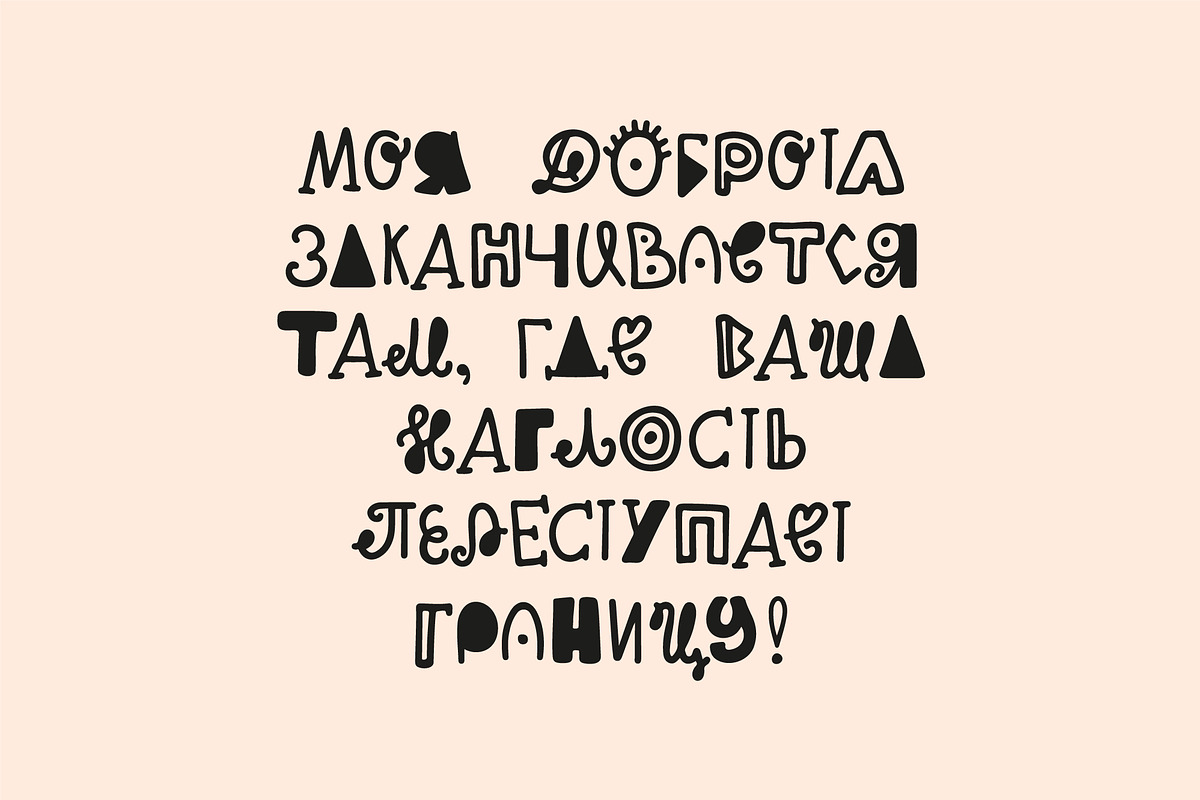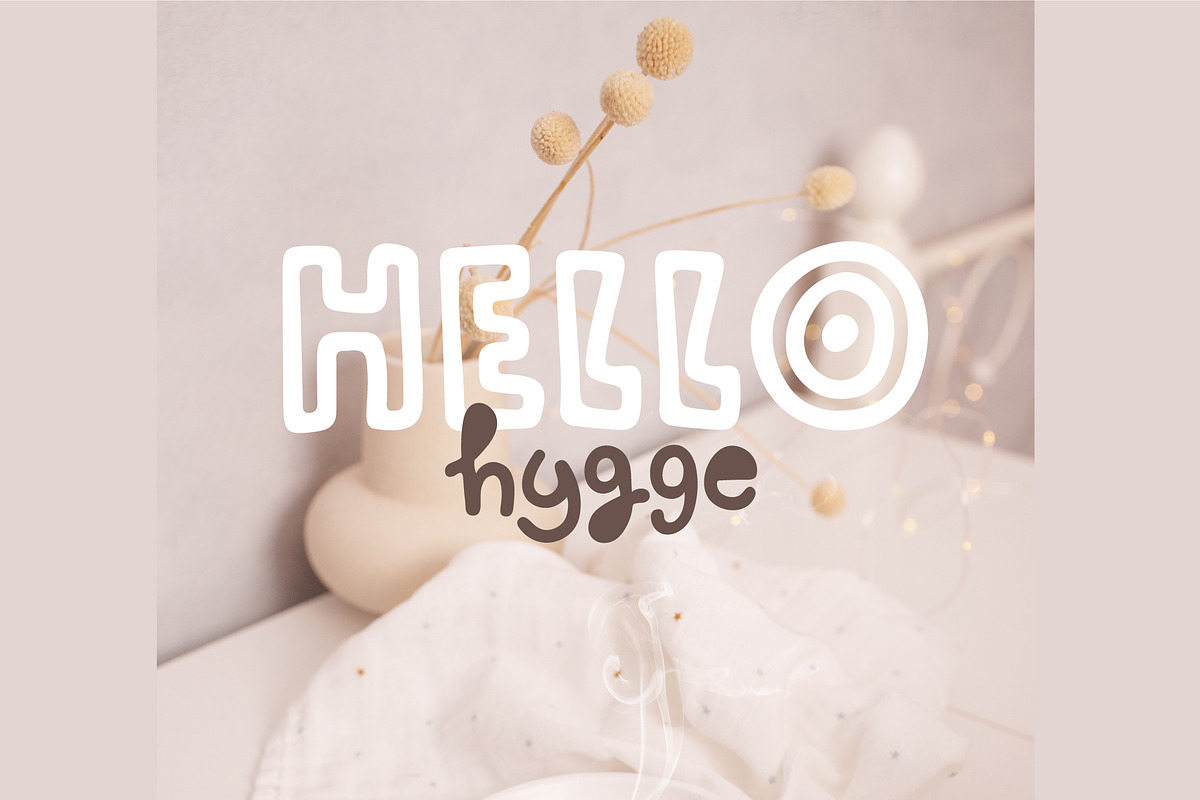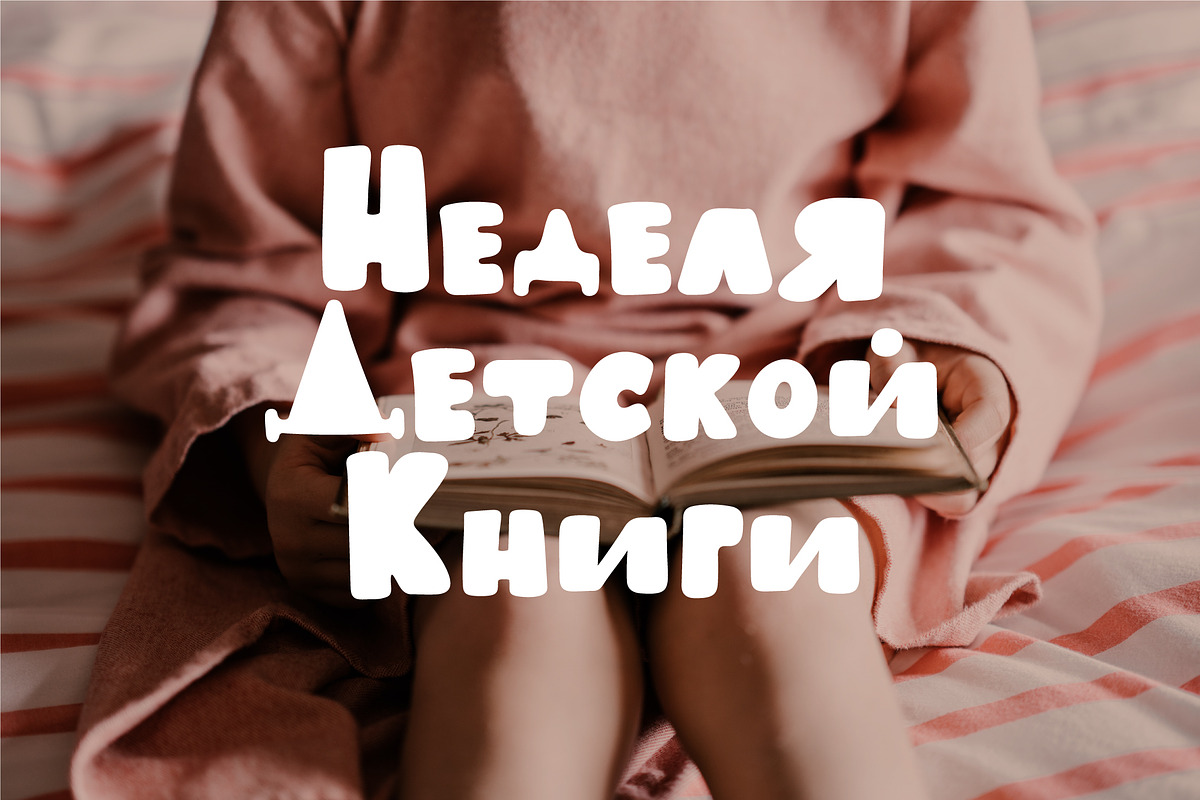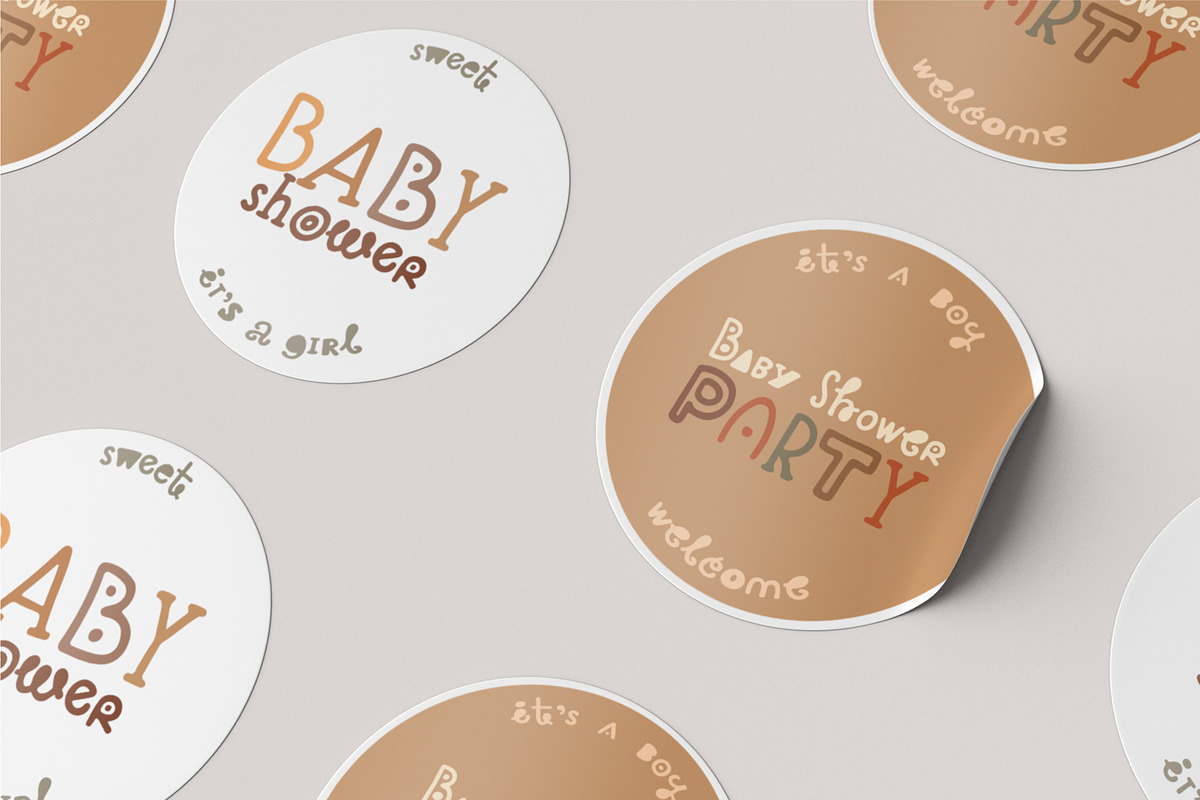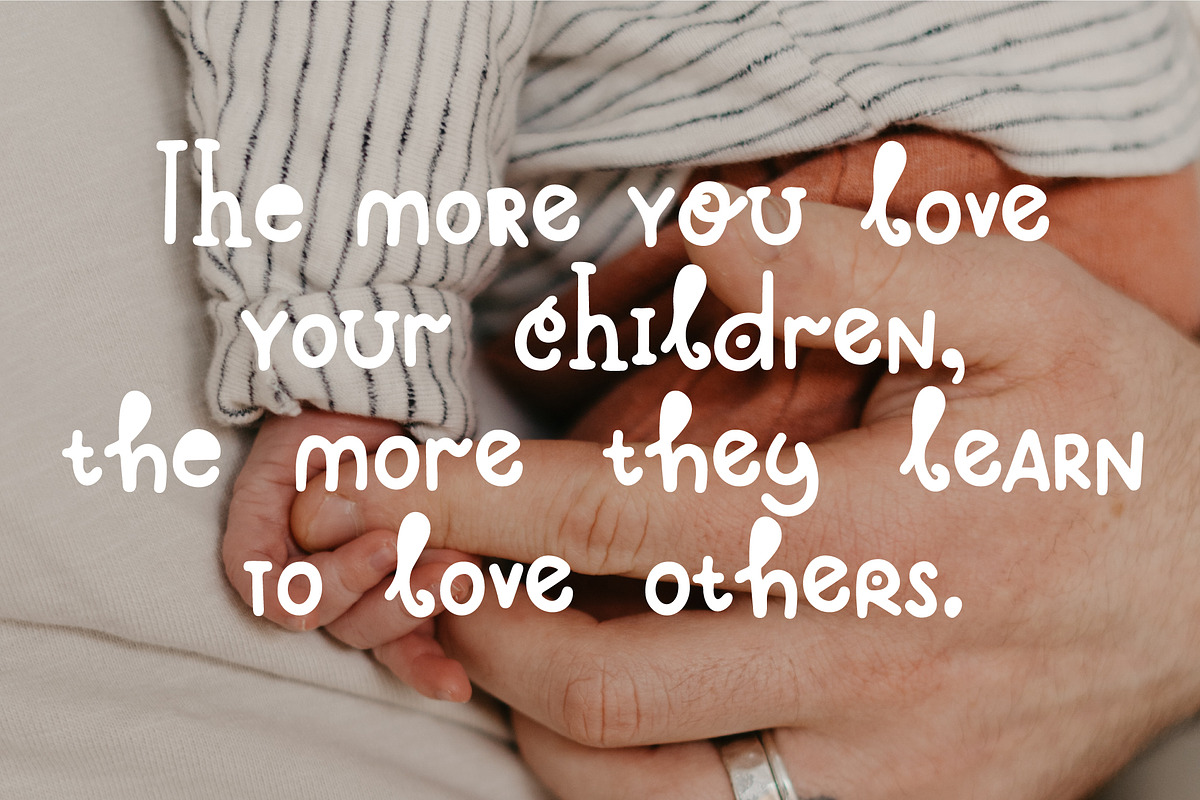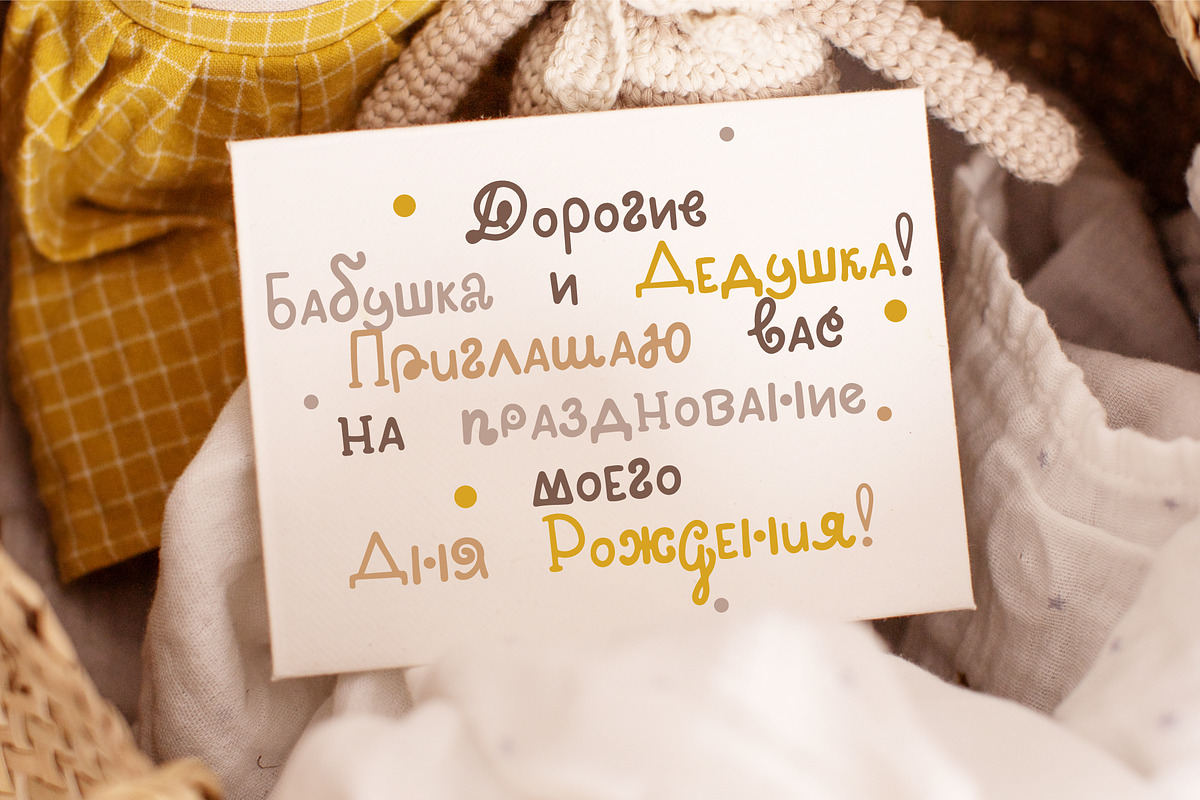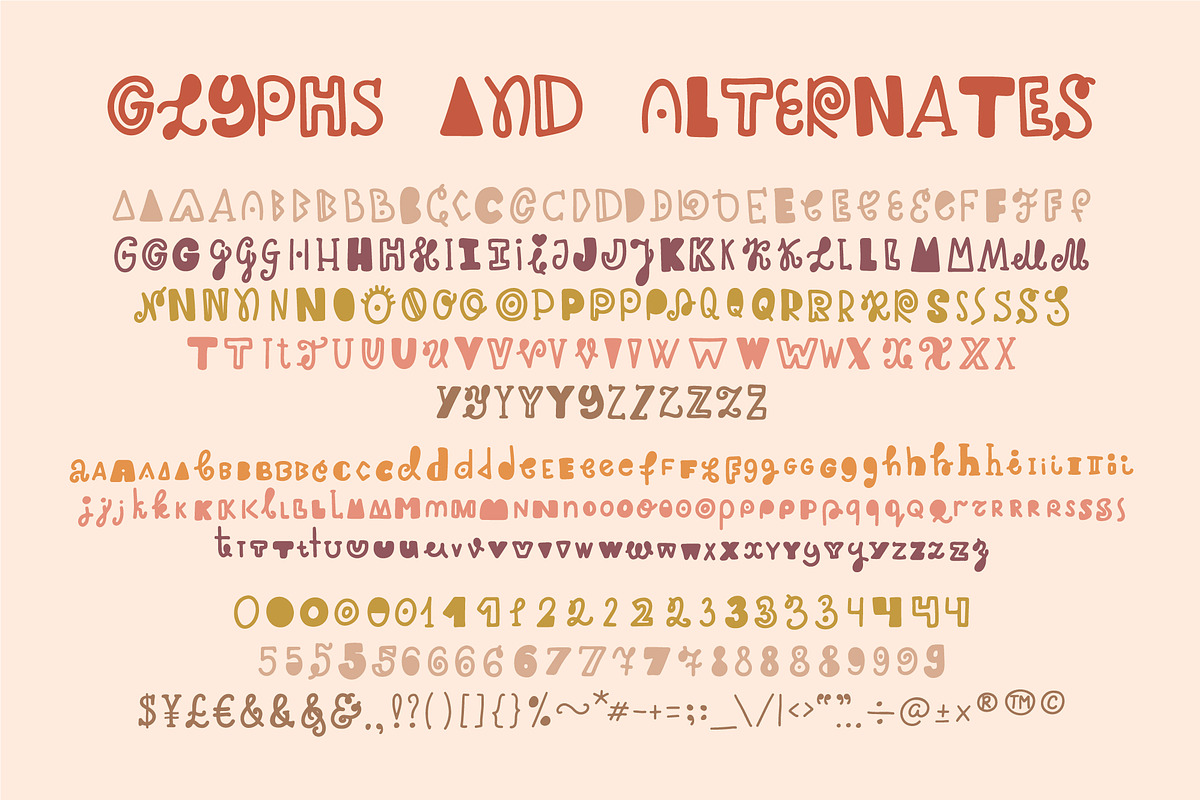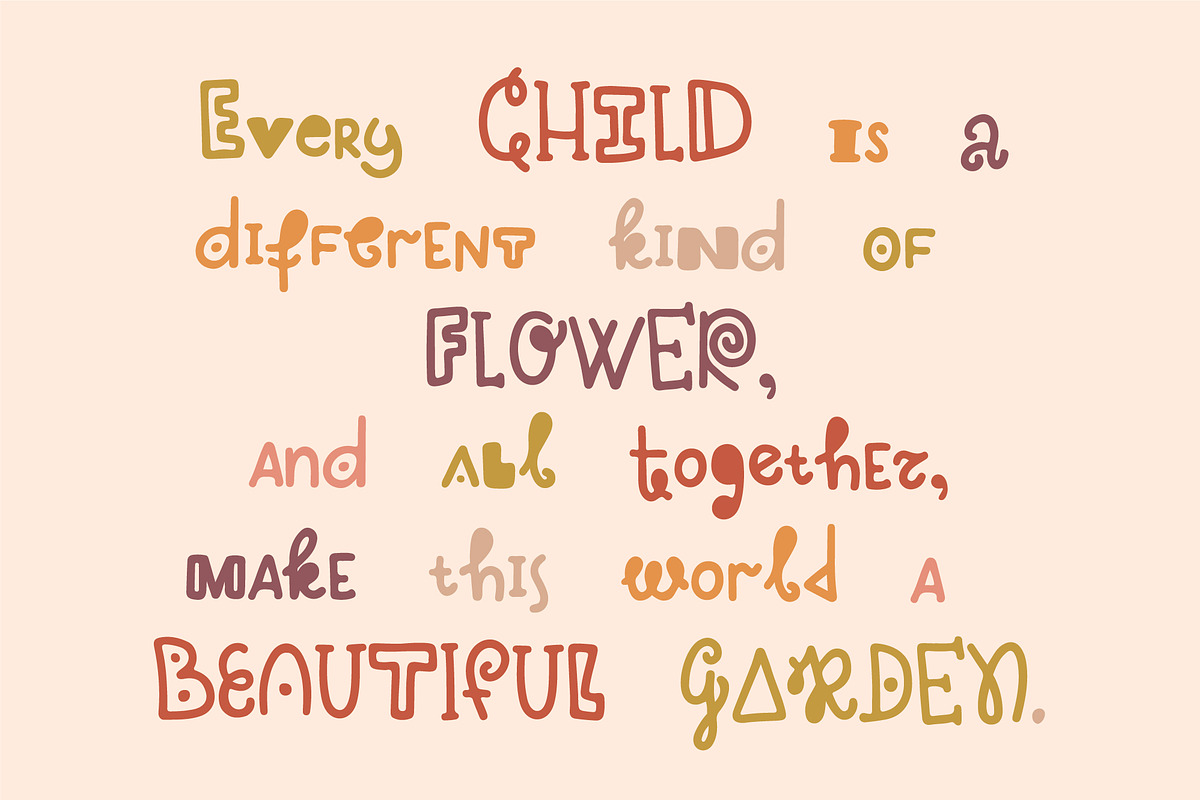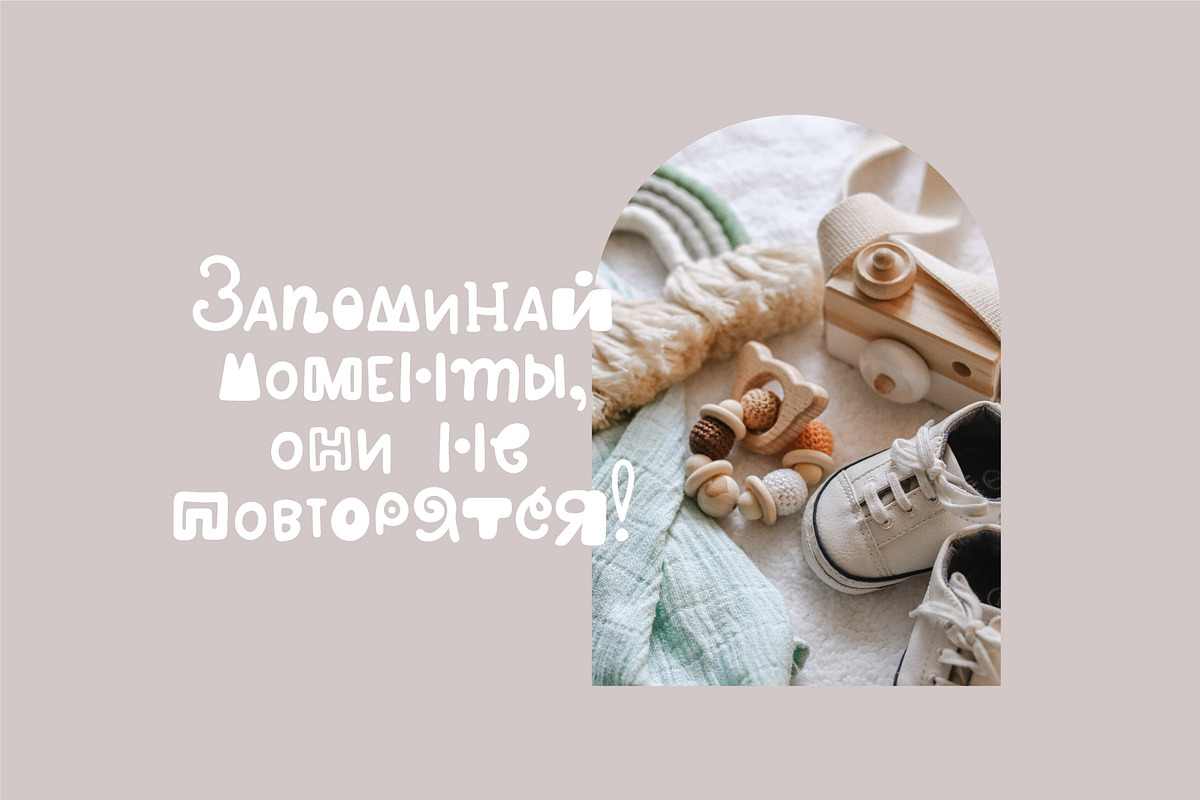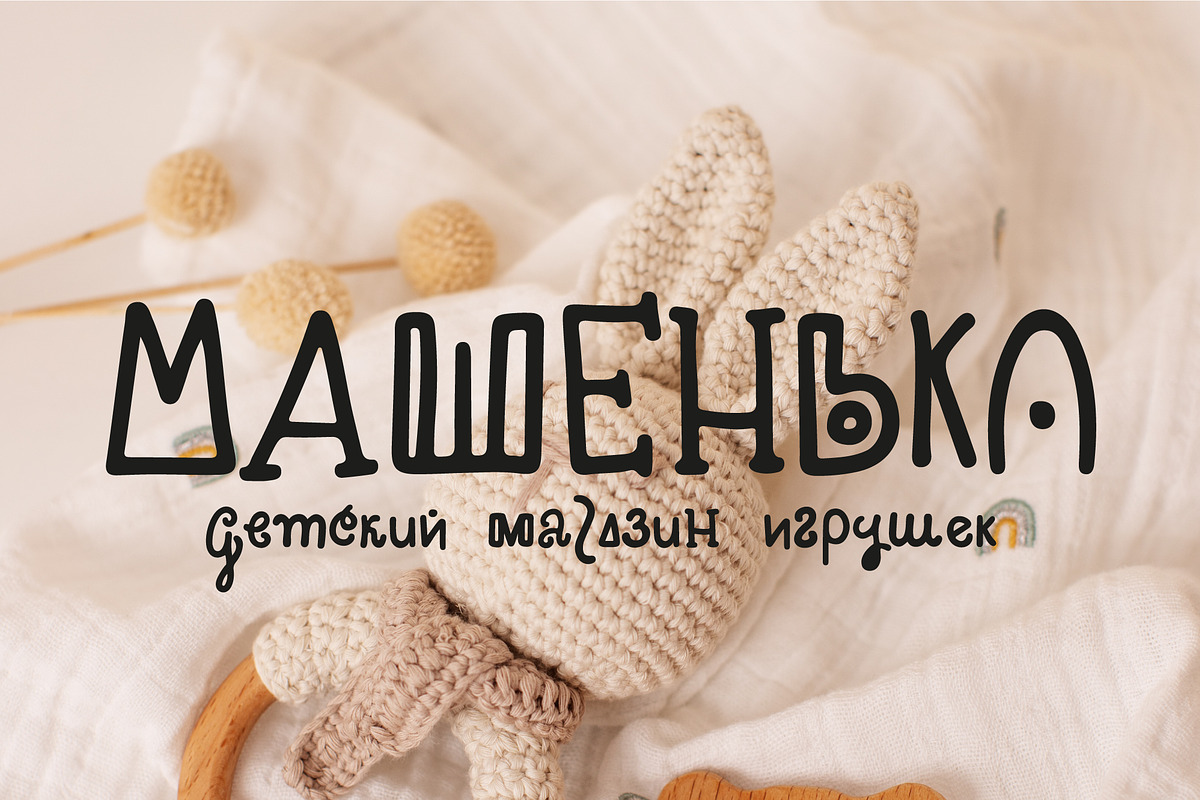
Darling Playful Font
Darling is a new eye-catching hand-written playful font with cyrillic letters which puts a smile on your projects and will inspire you to create something fun and memorable. It is perfect for headings, flyer, greeting cards, product packaging, book cover, printed quotes, logotype, apparel design, album covers, etc.
Darling will help you to create special and touching typographical design for scandinavian or childish projects, for every day or the happiest day in life, summer vacations, baby shower, happy birthday cards.
Darling typeface has lots of alternates built into their OpenType features - make sure you have your alternates turned on to get their benefit, so you can play with them to get different looks!
Darling font has uppercase and lowercase letters, alternates, numbers & basic punctuation, multilingual support (French, German, Italian, Norwegian, Portuguese, Spanish, Swedish, Swiss German).